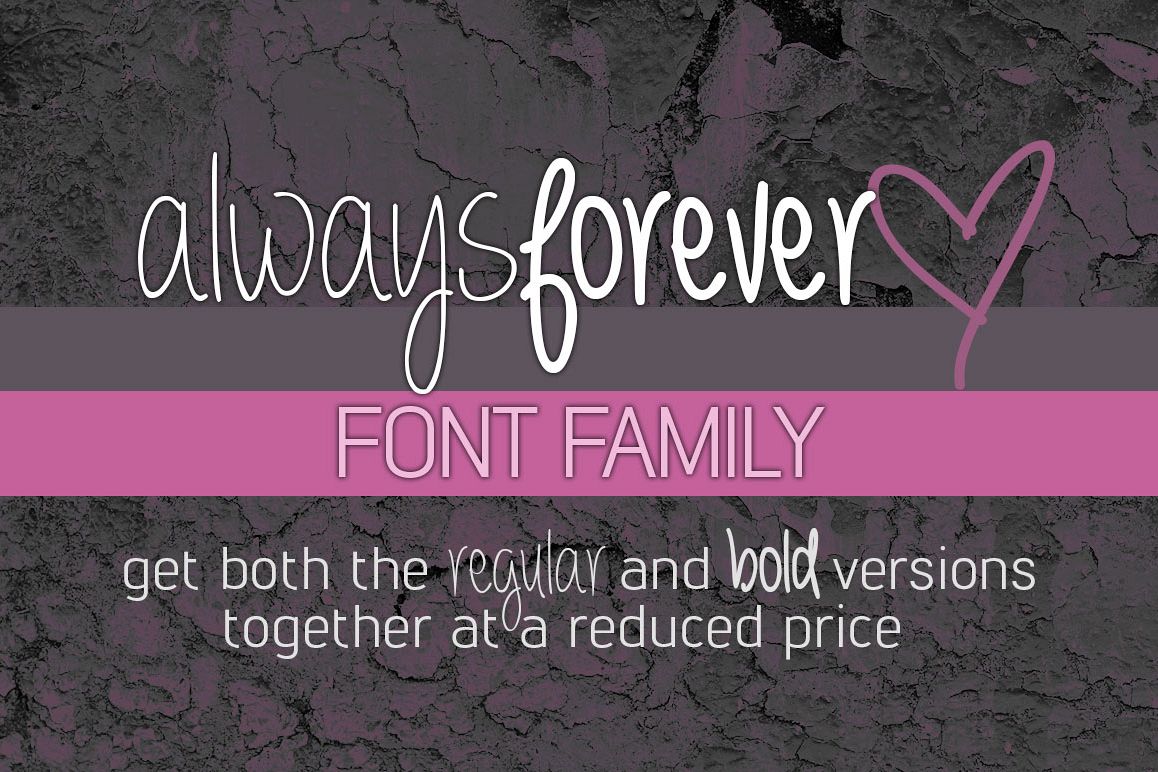
Always Forever Font Family
Always forever is a teenage-inspired handwritten font that’s great for both content and displays. And angsty notes of affection… there’s even a heart! ? Just use the * to find it!